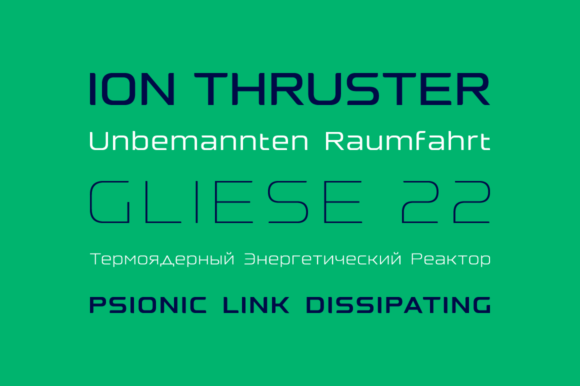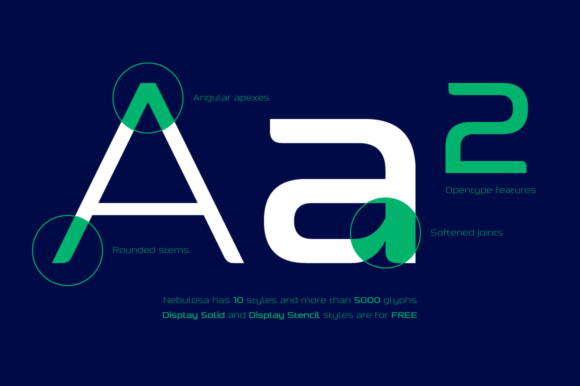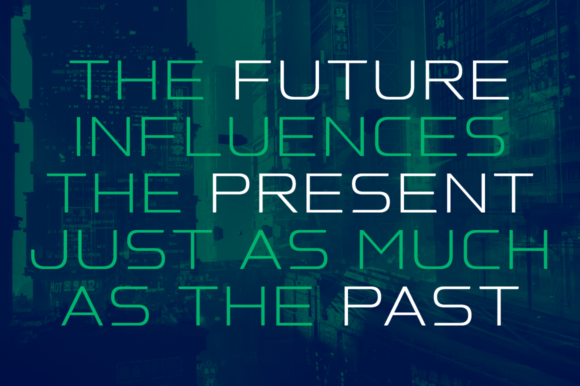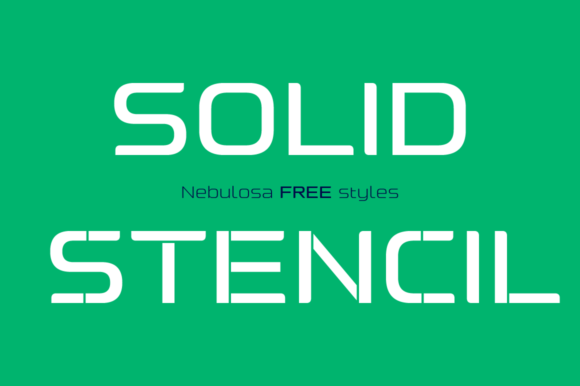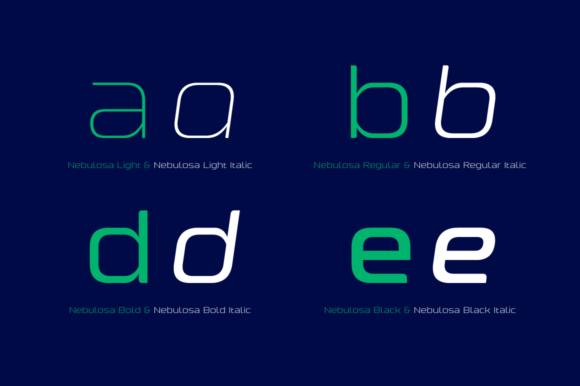
Introduction to Nebulosa Family Font Font
Fonts play a crucial role in design, and the Nebulosa Family Font font is a typeface that brings both character and versatility to any project. Whether you’re working on a branding project, a website, or a print design, the Nebulosa Family Font font offers a unique style that can elevate your work.
Nebulosa font family has been designed for Graviton Font Foundry by Pablo Balcells in 2020.
It is a futuristic, slightly extended sans serif typeface with semi rounded endings that provide a softened aesthetic without losing its solidity Nebulosa has been conceived to be most suitable for logos, headlines and display design pieces as well as short length text blocks.
Key Features of Nebulosa Family Font Font
Why Choose Nebulosa Family Font Font?
The Nebulosa Family Font font is more than just a typeface – it’s a design tool that helps you communicate your message with style and clarity. Its unique character set and versatile design make it suitable for a wide range of applications, from elegant invitations to bold headlines.
With its carefully crafted letterforms and balanced proportions, the Nebulosa Family Font font ensures readability and visual appeal across all mediums.
What makes Nebulosa Family Font font special?
The Nebulosa Family Font font stands out with its unique design, exceptional readability, and versatility across various design applications.